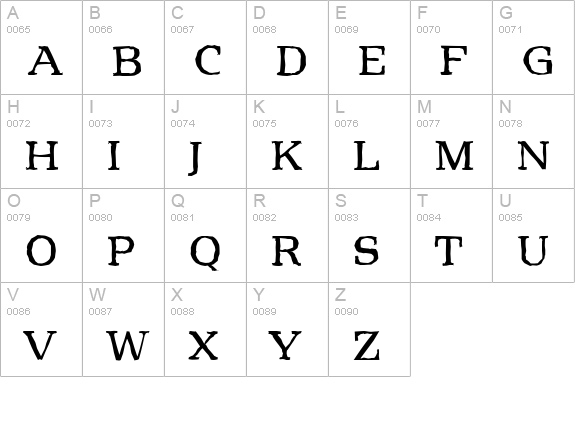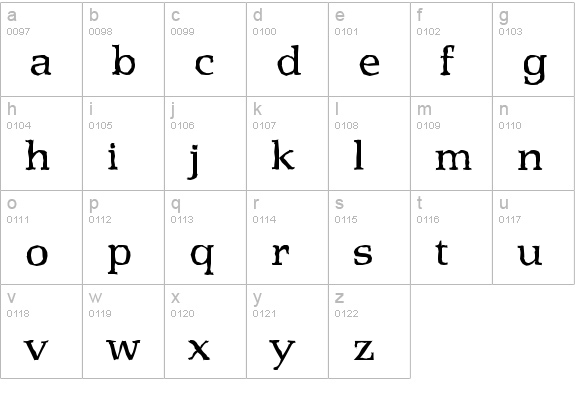
PenthouseAntique-Regular Font Details
PenthouseAntique-Regular is the standard, neutral variant in the PenthouseAntique typeface family \xE2\x80\x94 well suited to general body text, paragraphs, and standard typographic work.
PenthouseAntique-Regular is a timeless and elegant font that exudes sophistication and charm. With its classic serif style and intricate details, this font is perfect for adding a touch of vintage flair to any project. Whether you're designing invitations, logos, or signage, PenthouseAntique-Regular will effortlessly elevate your work to new heights. And the best part? PenthouseAntique-Regular is available for free download at FontsMarket.com! Don't miss out on the opportunity to add this stunning font to your collection without spending a dime. Download it today and start creating beautiful designs with ease.